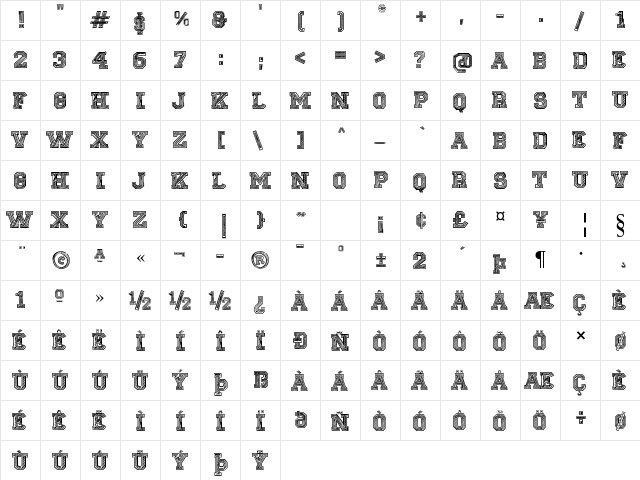
Sketch College Regular
Design Context for Sketch College Typeface
Sketch College brings high-energy athletic personality to the page — its confident, muscular forms are built for impact.
A natural choice for gym brands, fantasy sports, jersey lettering, and action-driven headlines.
Font Pairing: Use alongside a condensed or geometric sans for supporting copy — keep the pairing bold, functional, and free of ornament.
Pro Tip: Use Sketch College in all-caps headlines where its athletic energy can fully express itself. Pair with a solid, simple sans for supporting text.